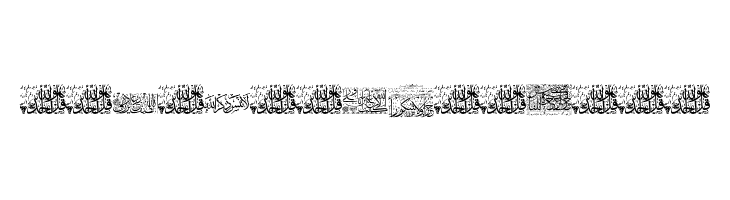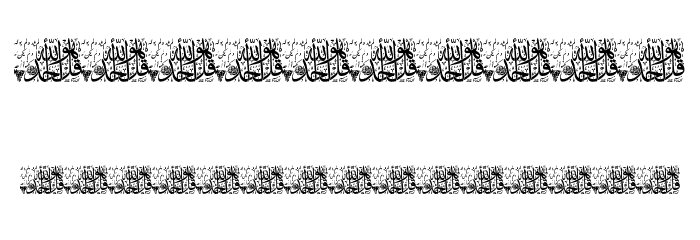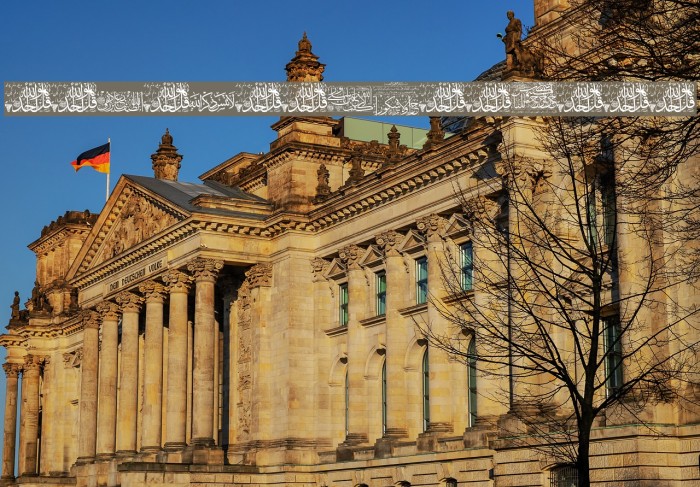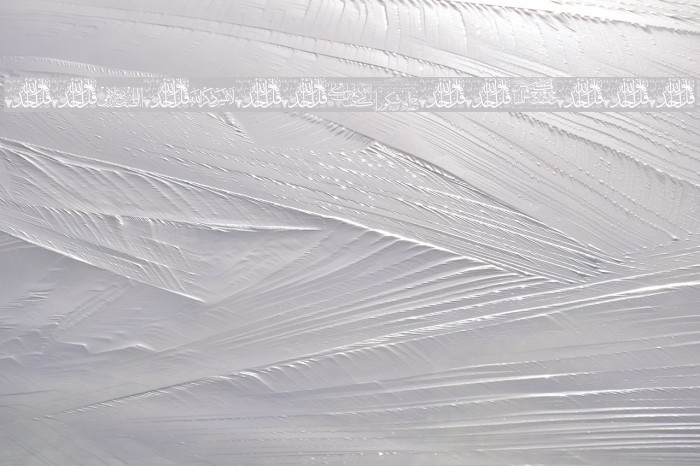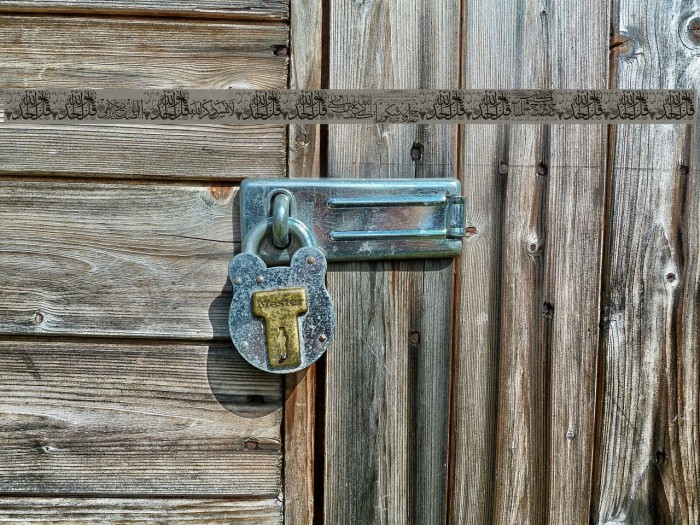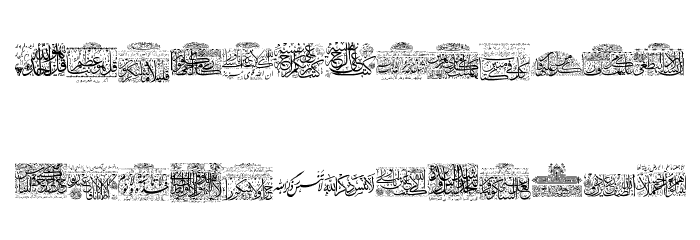
Aayat Quraan 28 Font
Aayat Quraan 28 Description
Highly decorative Arabic script with intricate calligraphic flourishes and dense, ornate detailing, commonly used in religious or ceremonial contexts. The letterforms are closely spaced and feature elaborate diacritics and embellishments, creating a visually rich and traditional appearance.
| Width | Condensed |
| Overall Style | Traditional, Ornate, Religious |
| Use Case | Religious scripture, Art pieces, Decorative headings |
| Proposed Projects | Religious texts, ceremonial documents, Islamic art, decorative borders, Quranic verses. |